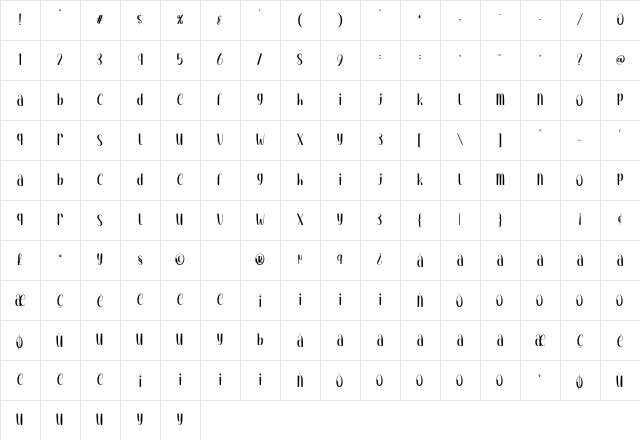
Loading Regular
Design Context for Loading
Loading is a composed and adaptable typeface that performs quietly and consistently across a wide range of design contexts.